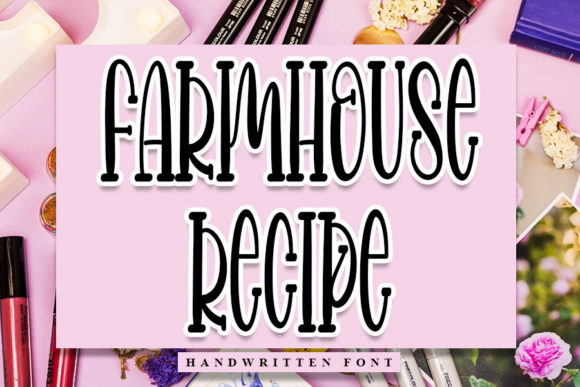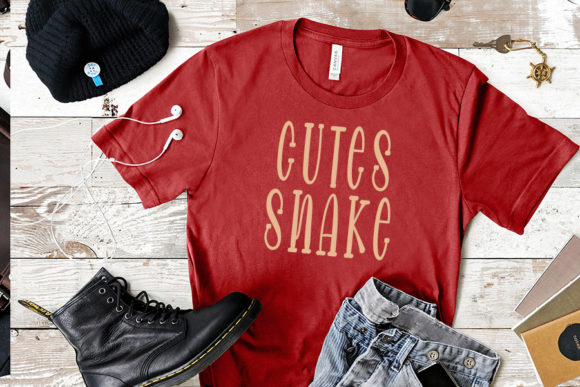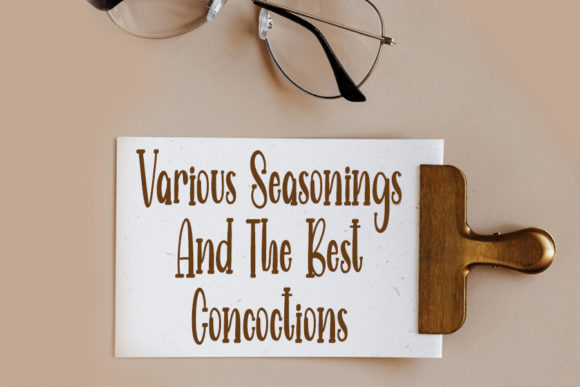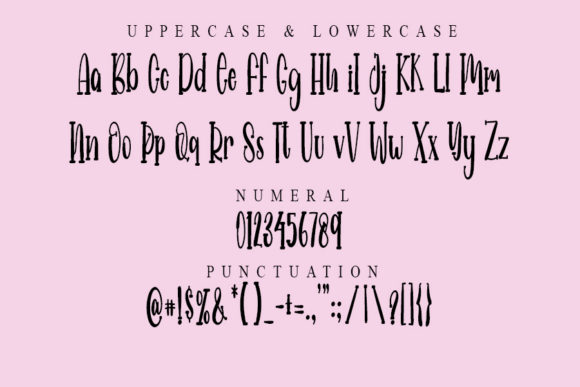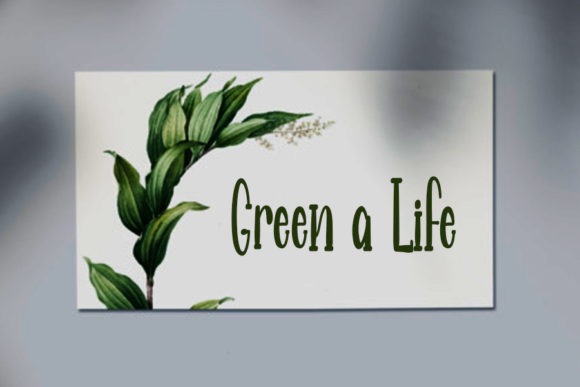
Farmhouse Recipe Font
About Farmhouse Recipe Font
Farmhouse Recipe is a tall and friendly handwritten font. A little bit quirky, this font looks incredibly adept on a wide variety of contexts!